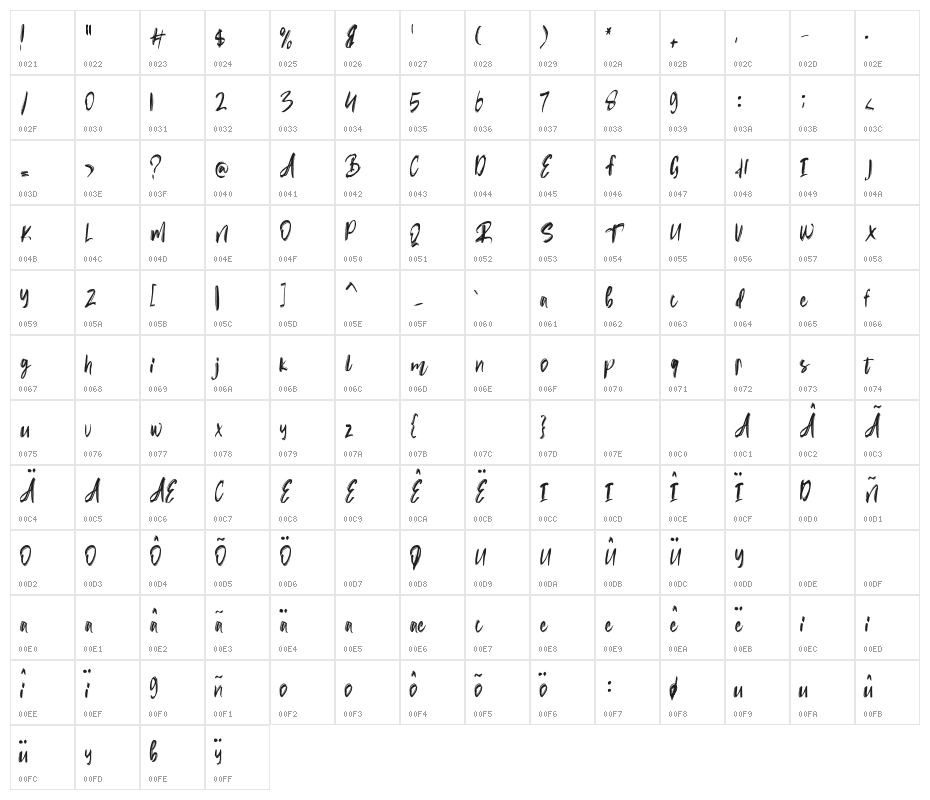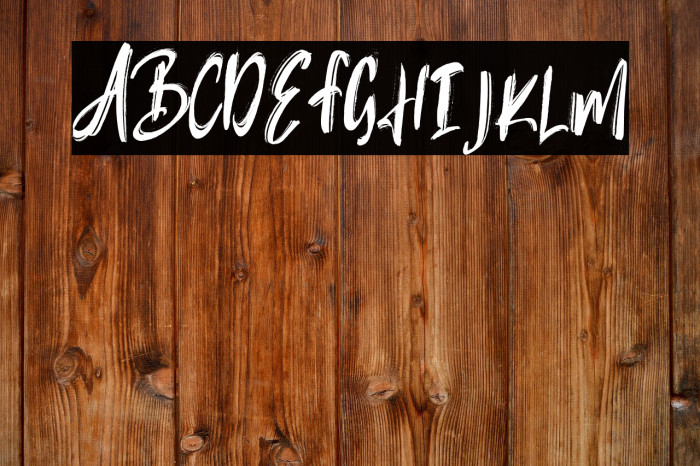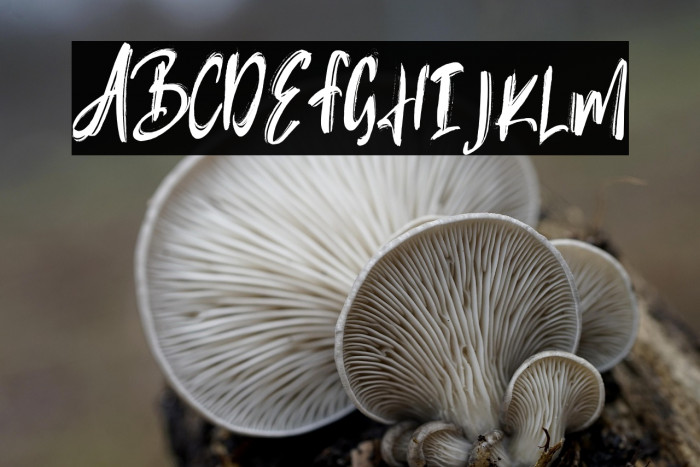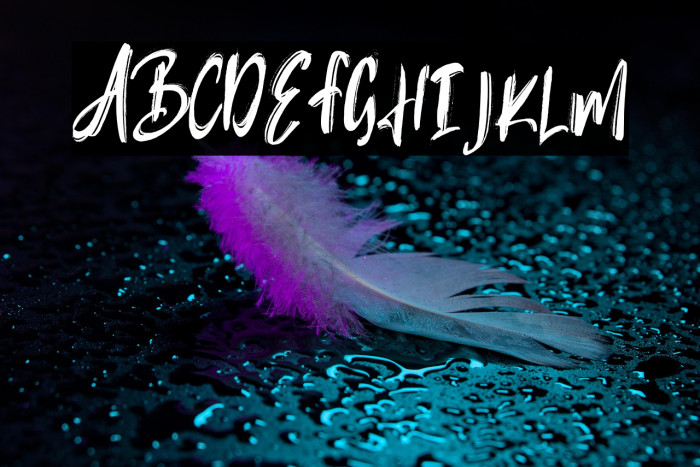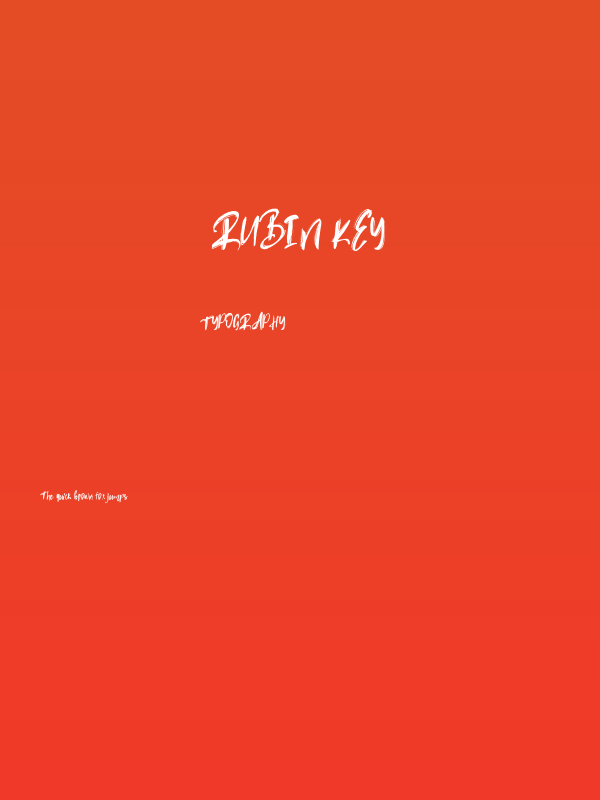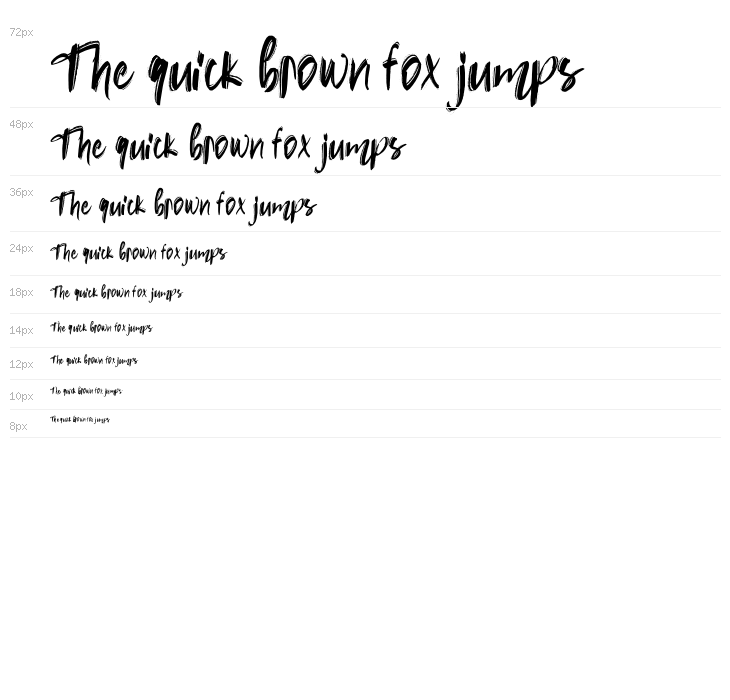
Rubin Key Font
Rubin Key Description
This font features a dynamic and expressive handwritten style, characterized by bold, sweeping strokes that convey a sense of energy and movement. The letters have a slightly irregular baseline, adding to the casual and artistic feel. The uppercase letters are tall and commanding, while the lowercase letters maintain a consistent flow, enhancing readability. Numbers and special characters are crafted with the same attention to detail, ensuring a cohesive look across all text elements. This font's brush-like texture gives it a unique, textured appearance, making it stand out in any design.
| Use Case | Logos, Headlines, Posters |
| Proposed Projects | Ideal for creative projects such as posters, invitations, branding, and social media graphics where a personal touch is desired. |